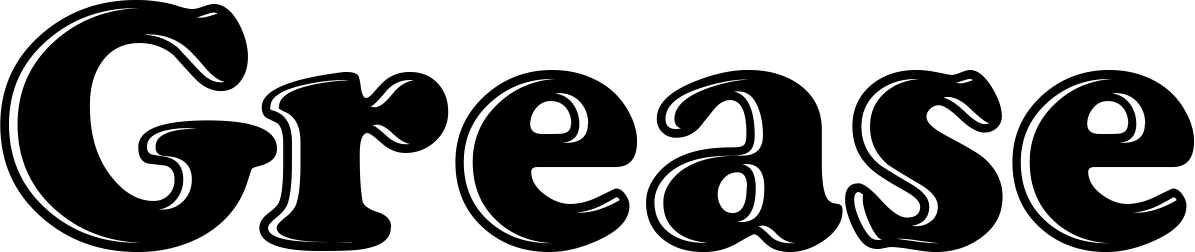
Grease Font
Grease font with gloss and bubbly characters creates a retro mood that you want to get from your context if you work on projects like shirts, nostalgic parties, classic magazine titles, apparel design, and more. For this , you get both the uppercase and lowercase of the alphabet and numbers, etc.